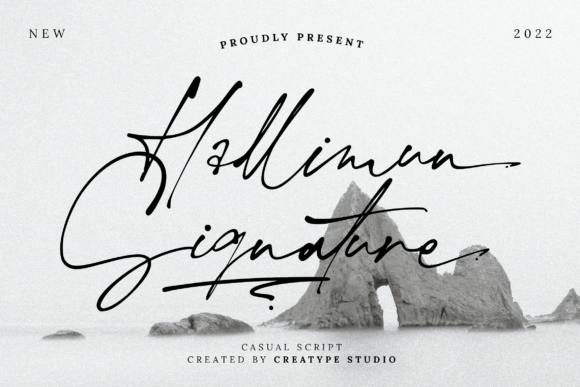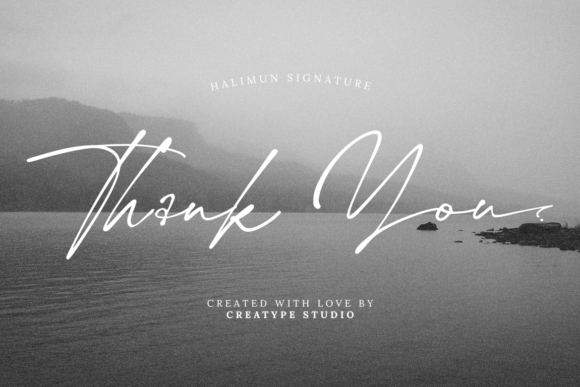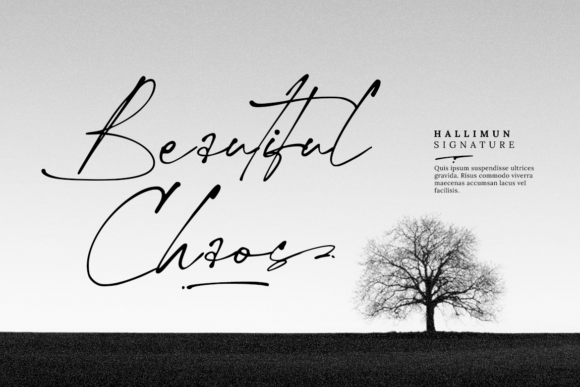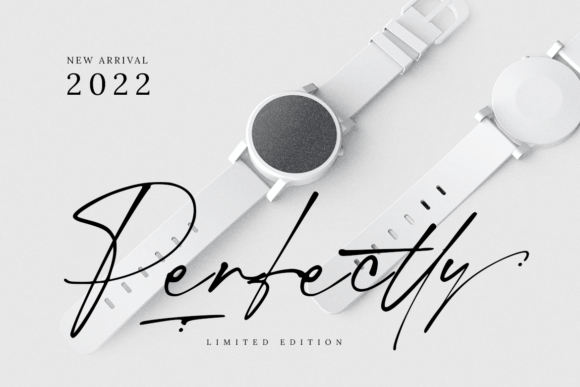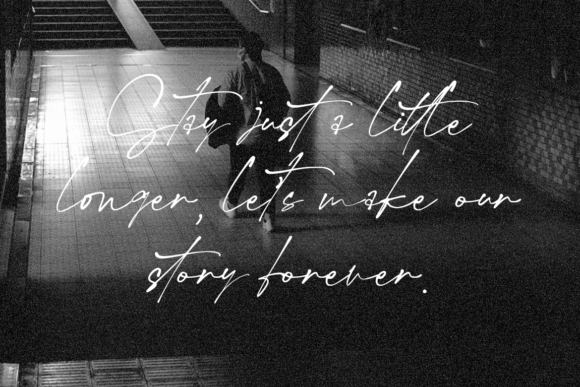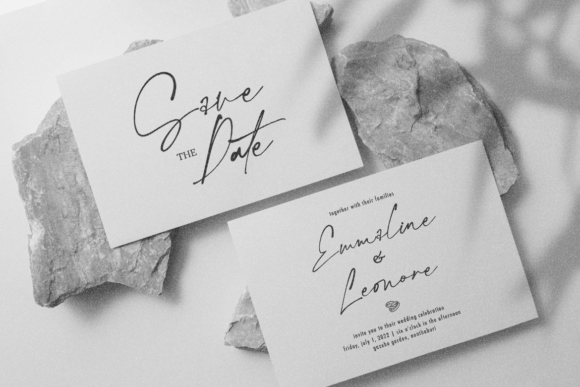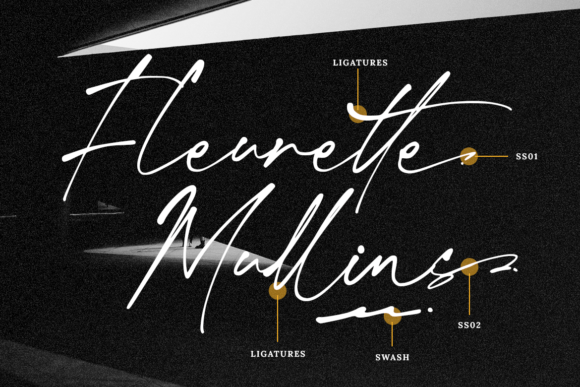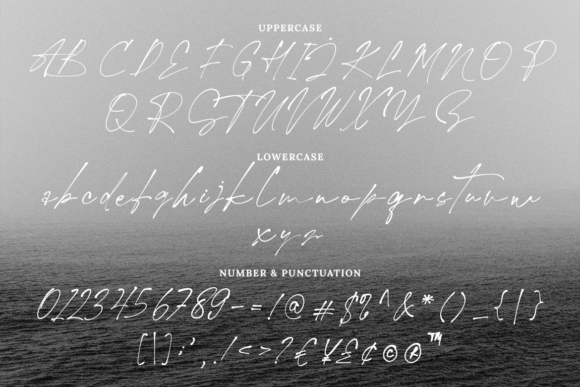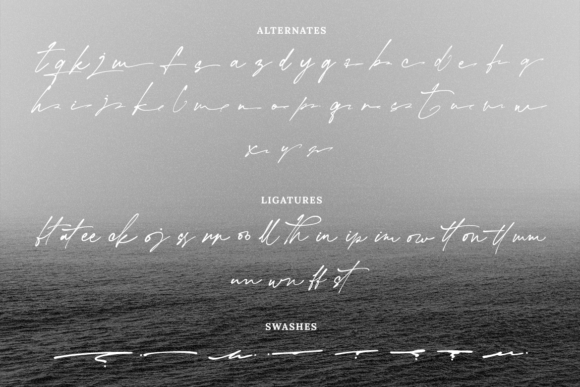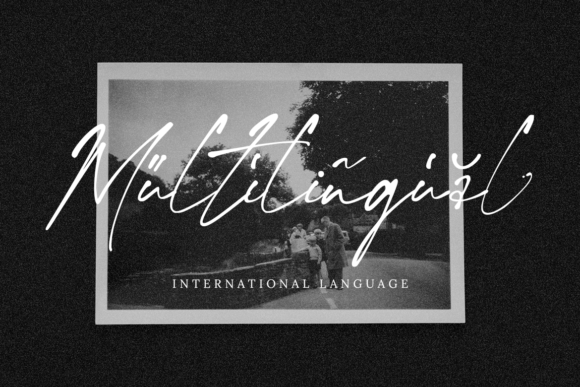
Hallimun Signature Font
A Stylish Handwritten Typeface with a Natural Look
The Hallimun Signature Font is a stylish handwritten typeface with a natural and authentic handwritten look. This font combines the elegance of classic calligraphy with a modern twist, giving your design projects a vintage and sophisticated vibe. Perfect for a wide variety of creative applications, the Hallimun Signature Font adds a unique touch to your designs, making them stand out with a personalized flair.
Perfect for Branding and Logo Design
If you’re working on branding projects or designing a logo, the Hallimun Signature Font is an ideal choice. Its signature-style strokes and refined feel make it perfect for creating memorable logos that convey elegance and sophistication. Whether you’re launching a new brand or looking to refresh your logo design, this font adds a distinctive and professional touch to your branding materials, ensuring your brand identity stands out.
Ideal for Wedding Designs and Invitations
For wedding designs and invitations, the Hallimun Signature Font is a perfect fit. Its romantic and elegant handwritten style adds a timeless and personal touch to your wedding stationery. Whether you’re designing wedding invitations, save the dates, thank you cards, or other wedding-related materials, this font brings a sophisticated, vintage feel that enhances the beauty of your designs, making them unforgettable for your special day.
Great for Social Media Posts and Advertisements
The Hallimun Signature Font also works wonderfully for social media posts, advertisements, and marketing materials. Its handwritten aesthetic gives your digital content a personal and engaging appeal, while its vintage style makes your posts stand out from the crowd. Whether you’re creating posts for Instagram, Facebook, or Pinterest, this font ensures your content captures attention and feels warm and inviting.
Perfect for Product Packaging and Labeling
For product packaging and labeling, the Hallimun Signature Font offers a stylish way to present your brand. Whether you’re designing product labels, tags, or packaging designs, this font’s unique calligraphic style gives your products a premium, high-end look. Its vintage charm makes it perfect for products in the luxury, fashion, or artisan industries, helping your product stand out on shelves or online.
Great for Photography, Watermarks, and Stationery
The Hallimun Signature Font is also ideal for photography, watermarks, and stationery. Whether you’re adding a personalized touch to your photography portfolio, creating watermarks for your images, or designing elegant stationery items like letterheads or envelopes, this font enhances the quality and appeal of your work. Its elegant, signature-style strokes make your designs feel authentic and unique, elevating their overall quality.
Elegant, Legible, and Timeless
Despite its handwritten appearance, the Hallimun Signature Font remains legible and easy to read. Its clean strokes and carefully designed characters ensure that your text is clear and easy to understand, even at smaller sizes. Whether you’re using it for headlines, subheadings, or longer text, this font combines elegance with readability, making it suitable for a wide range of design applications.
The Hallimun Signature Font is designed to be easy to use and works seamlessly in most design software. Whether you’re working on logos, invitations, branding, or social media posts, this font ensures your designs look polished and professional. Its flexibility allows you to use it for both print and digital media, making it perfect for various design needs.
Add Sophistication and Elegance to Your Designs with Hallimun Signature Font
If you’re looking for a stylish, romantic, and vintage handwritten font to elevate your designs, the Hallimun Signature Font is the perfect choice. Whether you’re working on branding, wedding invitations, logos, or advertisements, this font adds a touch of elegance and sophistication to your projects. Let the Hallimun Signature Font help you create memorable, beautiful designs that leave a lasting impression.